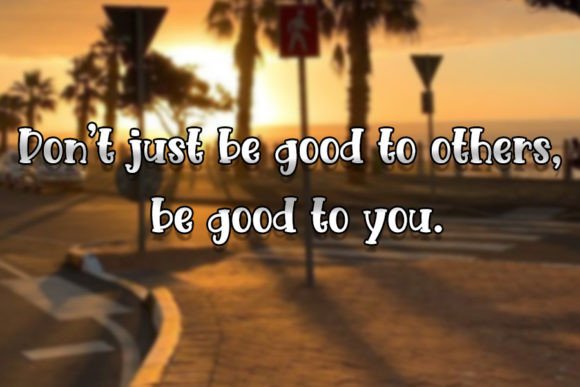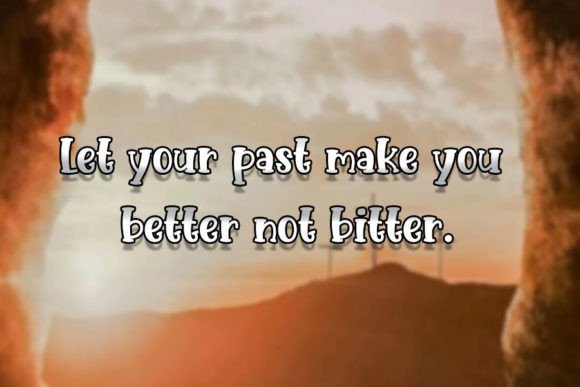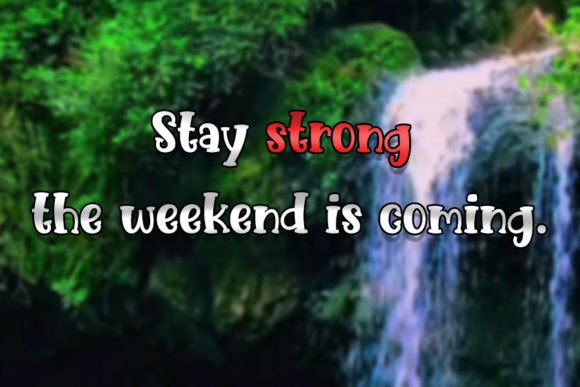
Introduction to Lowseason Font
Have you ever been stuck on a creative project, searching for the perfect font to bring your ideas to life? I know I have. There’s nothing quite like the feeling of finally finding that elusive design element that ties everything together. For me, it was discovering the delightful Lowseason Font, and I’m excited to share its charms with you.
Lowseason Font is more than just a pretty face – it’s a valuable resource for designers looking to add a touch of playfulness and authenticity to their work. With its cute and quirky serif style, it’s the perfect choice for children’s activities, school projects, and any other creative endeavor that requires a lighthearted tone.
One of the things I love about Lowseason Font is its high quality and versatility. Whether you need a font with a transparent background or want to download it for free, this design resource has got you covered. Its unique style is sure to add a creative twist to any project, making it an invaluable addition to any designer’s toolkit.
Key Features of Lowseason Font
- Unique, modern design aesthetic that adds a touch of sophistication to any creative project.
Honest Review: Lowseason Font
I recently stumbled upon the Lowseason Font and was eager to give it a try. As a designer, I’m always on the lookout for high-quality design resources that can elevate my creative projects. This font did not disappoint.
Here are some things that I really like about the Lowseason Font: ✨
- Unique and stylish aesthetic that’s perfect for modern designs
- High-quality vector format, ensuring crisp and clear typography
- Limited character set, which may not be ideal for lengthy text-based projects
- No bold or italic weights available, which can limit its versatility
Overall, I’m impressed with the Lowseason Font and would definitely recommend it to fellow designers. It’s a great addition to any design arsenal, and its unique style can help take your creative projects to the next level.
The Lowseason Font is commonly used in creative projects such as social media graphics, blog posts, and marketing materials. Its high-quality design and transparent background make it an ideal choice for designers looking for a versatile design resource.
Alternatives to Lowseason Font
The Great Vibes Font is a free, handwritten font perfect for creative projects that require a touch of elegance. It features a transparent background, making it ideal for overlaying on images. When to use: For invitations, greeting cards, or any design that needs a personal touch.
How it compares to Lowseason Font: While both fonts have a casual, handwritten feel, Great Vibes Font is more elegant and sophisticated, making it suitable for a wider range of design projects.